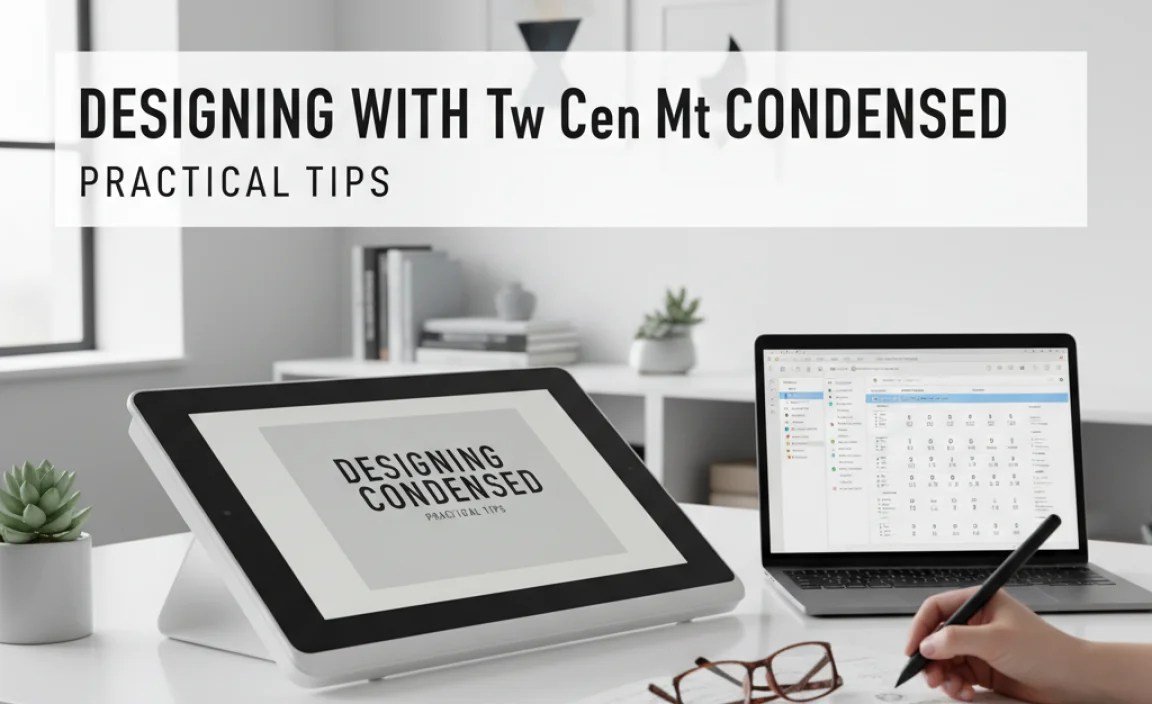
Tw Cen Mt Condensed Font is a highly versatile sans-serif font that excels in saving space while maintaining excellent readability. It’s a genius essential for tight layouts, crowded designs, and brand consistency across various applications, making it a go-to for designers needing clarity and impact.
Ever feel like your words are playing Tetris, trying to fit into a space that’s just a little too small? You love the message, but the font you’re using makes it look squished, or worse, hard to read. It’s a common design puzzle, especially when working with limited space on websites, print materials, or app interfaces.
You want your text to shine without taking over the whole design. Don’t worry, there’s a clever solution that many designers rely on, and I’m here to show you just how brilliant it is. Get ready to discover a font that’s not just good, but a true design essential.
Unpacking the Genius of Tw Cen Mt Condensed
Let’s dive into what makes the Tw Cen Mt Condensed font so special. At its core, it’s part of the wider Century family, a typeface with a long history and a reputation for clarity. But “Condensed” is where the magic happens for modern design challenges. Think of it as a highly optimized version of a classic, built for efficiency without sacrificing an ounce of legibility. This means you get more text in less physical space, which is a game-changer for so many projects.
What Exactly is a Condensed Font?
Before we get too deep into Tw Cen Mt Condensed, let’s quickly clarify what makes a “condensed” font distinct. Standard fonts have a certain width for each character. Condensed fonts, on the other hand, have characters that are narrower than average. However, the height and spacing are usually adjusted so that the overall visual feel remains balanced and easy to read, even when packed together. This is a key design feature that allows for impressive text density.
Imagine a regular font as a comfy armchair – it’s spacious and inviting. A condensed font is more like a stylish, streamlined sofa; it offers comfortable seating but fits more people in the same area. This clever manipulation of character width is what allows Tw Cen Mt Condensed to be such a powerful tool.
Tw Cen Mt Condensed: Family Ties and Key Features
The “Tw Cen Mt” bit stands for “Twentieth Century Monotype,” hinting at its origins. Monotype is a renowned type foundry with a rich legacy in creating impactful fonts. “Twentieth Century” suggests its design is rooted in the clarity and functionality favored during that era of design. But it’s the “Condensed” that gives it its unique superpower.
Here are some of the standout features:
- Narrow Letterforms: The most obvious characteristic. Each letter is designed to be narrower than its standard counterpart.
- Excellent Legibility: Despite being narrow, the letterforms are still clear and distinct, making them easy to read even at smaller sizes. This is thanks to careful design of the x-height, counter spaces (the enclosed or partially enclosed negative space in a letter), and aperture (the opening of a letter like ‘c’ or ‘e’). A higher x-height tends to improve readability at smaller sizes.
- Generous Spacing: While the characters are condensed, the default letter and word spacing is often adjusted to ensure comfortable reading flow.
- Versatile Weights: Typically available in a range of weights from light to bold, allowing for typographic hierarchy within condensed text.
- Sans-Serif Classification: As a sans-serif font, it lacks the small decorative strokes (serifs) found at the ends of letter strokes in serif fonts, giving it a clean, modern, and straightforward appearance.
Why is Tw Cen Mt Condensed a “Genius Essential”?
The “genius” in our title isn’t just a catchy phrase; it reflects the font’s inherent smartness in solving specific design problems. It’s an “essential” because it’s one of those tools designers reach for again and again when faced with constraints.
Here’s why it earns that title:
- Space Saver: This is its primary superpower. Need to fit more information on a brochure panel? Want to display a lot of data in a chart legend without clutter? Web designers frequently use condensed fonts to maximize content on mobile screens or in complex interfaces.
- Readability in Tight Spots: Unlike some other condensed fonts that can become difficult to decipher when squeezed, Tw Cen Mt Condensed maintains a high level of clarity. This means your message still gets across effectively.
- Brand Consistency: For brands that need to maintain a consistent look across many different collateral materials (from business cards to billboards), having a font that can adapt to various space limitations is invaluable.
- Hierarchical Clarity: Using a bolder condensed weight for headings and a lighter, perhaps slightly less condensed or even a regular font for body text, can create strong visual structure.
- Modern & Professional Aesthetic: Its clean lines and sans-serif nature lend a contemporary and professional feel to any design.
Q5: How do I make Tw Cen Mt Condensed look more stylish?
Pair it with contrasting fonts, experiment with different weights for hierarchy, and pay close attention to kerning and tracking for a polished look. Using it for impactful headlines or in creative design layouts can elevate its perceived style.